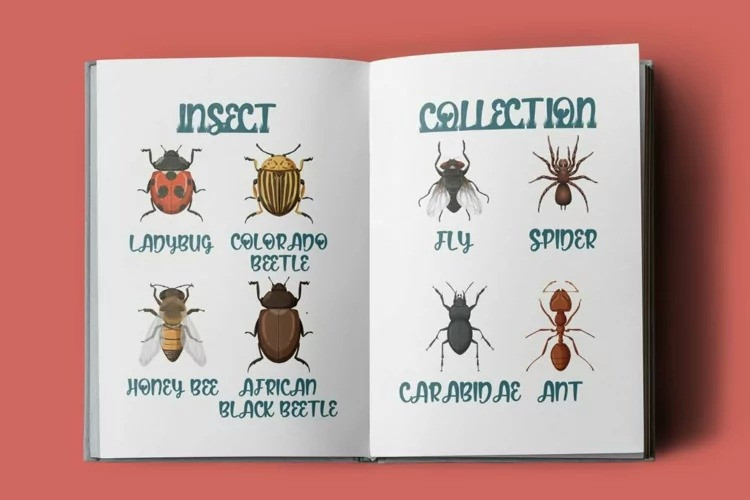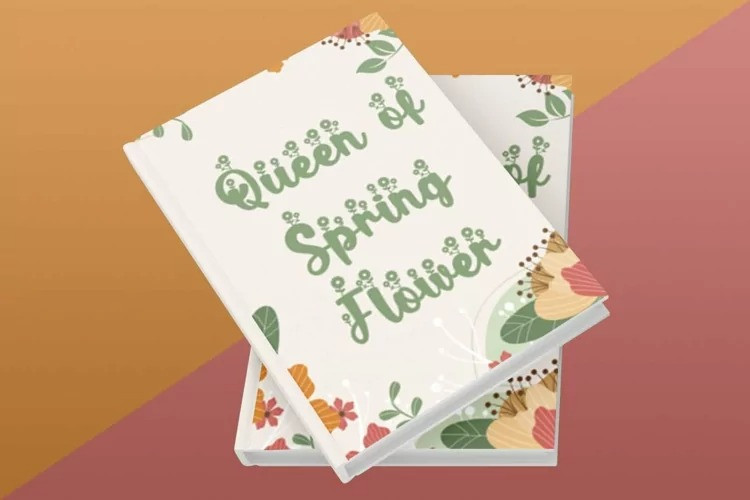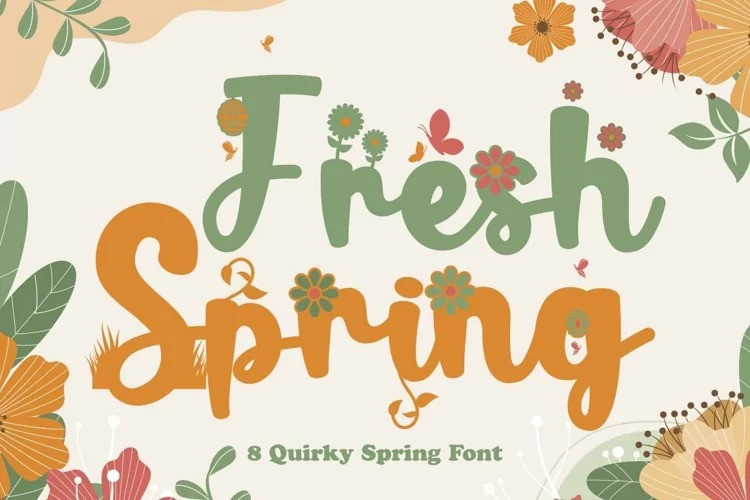
FreshSpring Font
Fresh Spring – 8 Quirky Spring Font. Fresh Spring is a unique plant font with 7 different versions of the font, the difference between each version is in the shape of the plant decoration. This font is basically soft and fun, coupled with plant embellishments, various shapes and options, will make this font suitable for any project you are working on, especially those with the theme of love, plants, children, babies, weddings, etc. In addition, this font is also suitable for invitation cards, greeting cards, logos, branding, posters, crafting, stickers, social media, packaging, headers, merchandise and others.